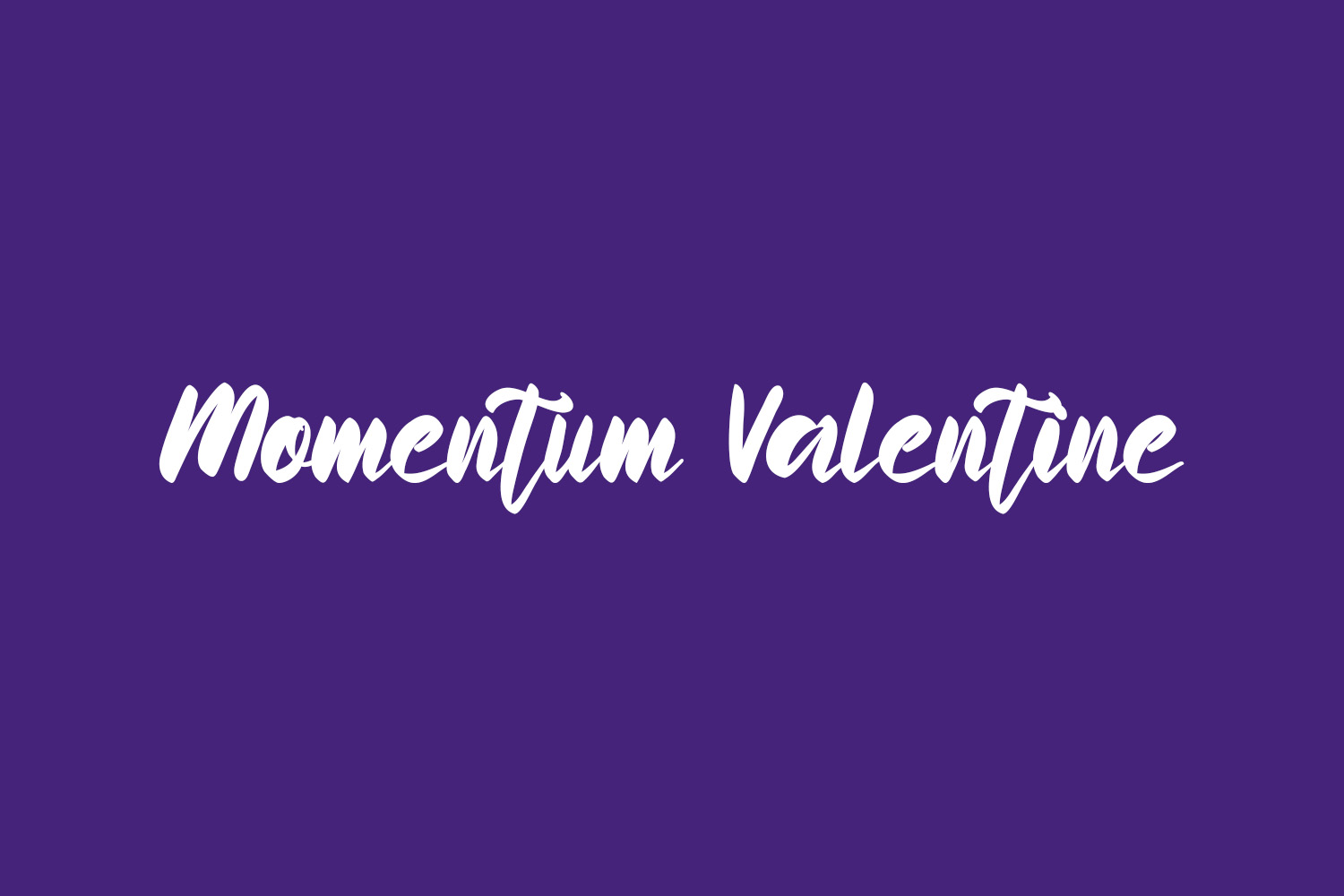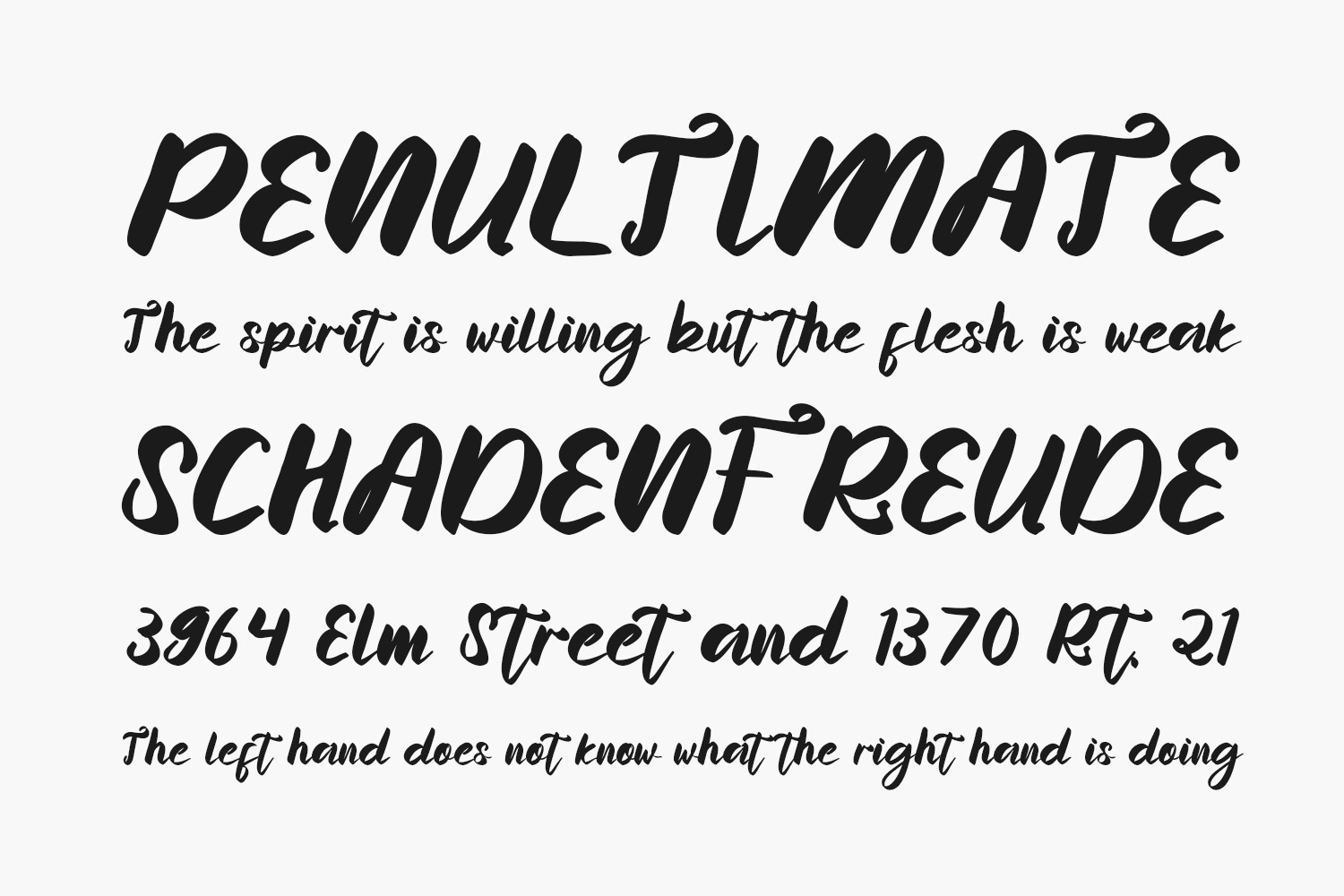
Momentum Valentine Free Font s a sweet handwritten font. It maintains its classy calligraphic influences while feeling contemporary and fresh. Fall in love with it and bring your projects to the highest levels. Momentum Valentine Free Font was designed by Yahhya Anas and is free for personal use only. Please purchase the full version for commercial use.
Designed by Yahhya Anas